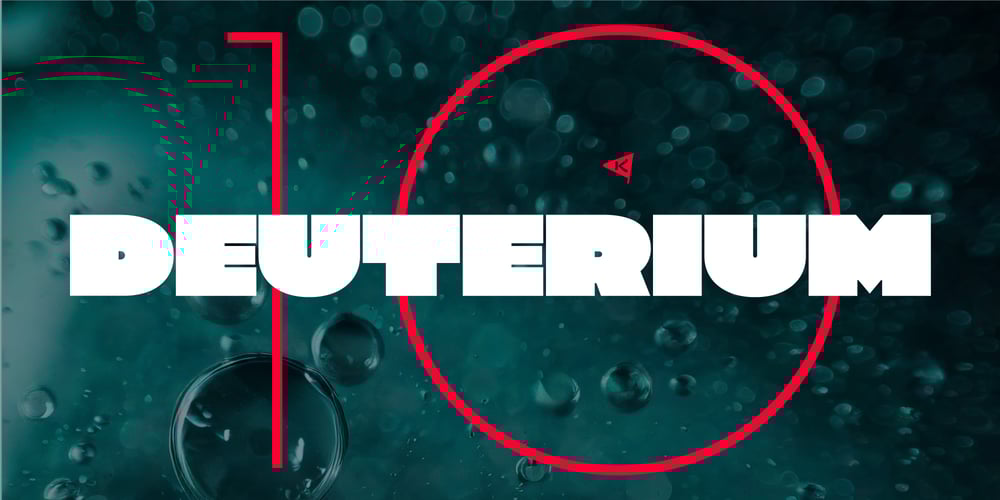
Deuterium
Deuterium font
Deuterium Font Family was designed by Nikola Kostić and published by Kostic. Deuterium contains 10 styles and family package options. This versatile font family comprises 10 distinct weights, ranging from the delicate Thin to the bold and distinctive Ultra Heavy.What makes Deuterium special is its approach to the heavy styles. Balancing geometric principles with the challenges of extreme weight, Deuterium manages to preserve the geometric character even when the stems expand to extraordinary widths and the apertures narrow to the size of a dot.In the world of type design, geometric sans-serif fonts are known for their precision and adherence to symmetry. Deuterium deviates from this norm while keeping its geometric essence — it is a thoughtful reinterpretation of the classic style.Whether you’re designing for branding, headlines, or text, Deuterium is a versatile tool that adds a modern touch to your projects. It explores geometry in unconventional heavy styles, making your designs stand out with a subtle yet distinct geometric charm.